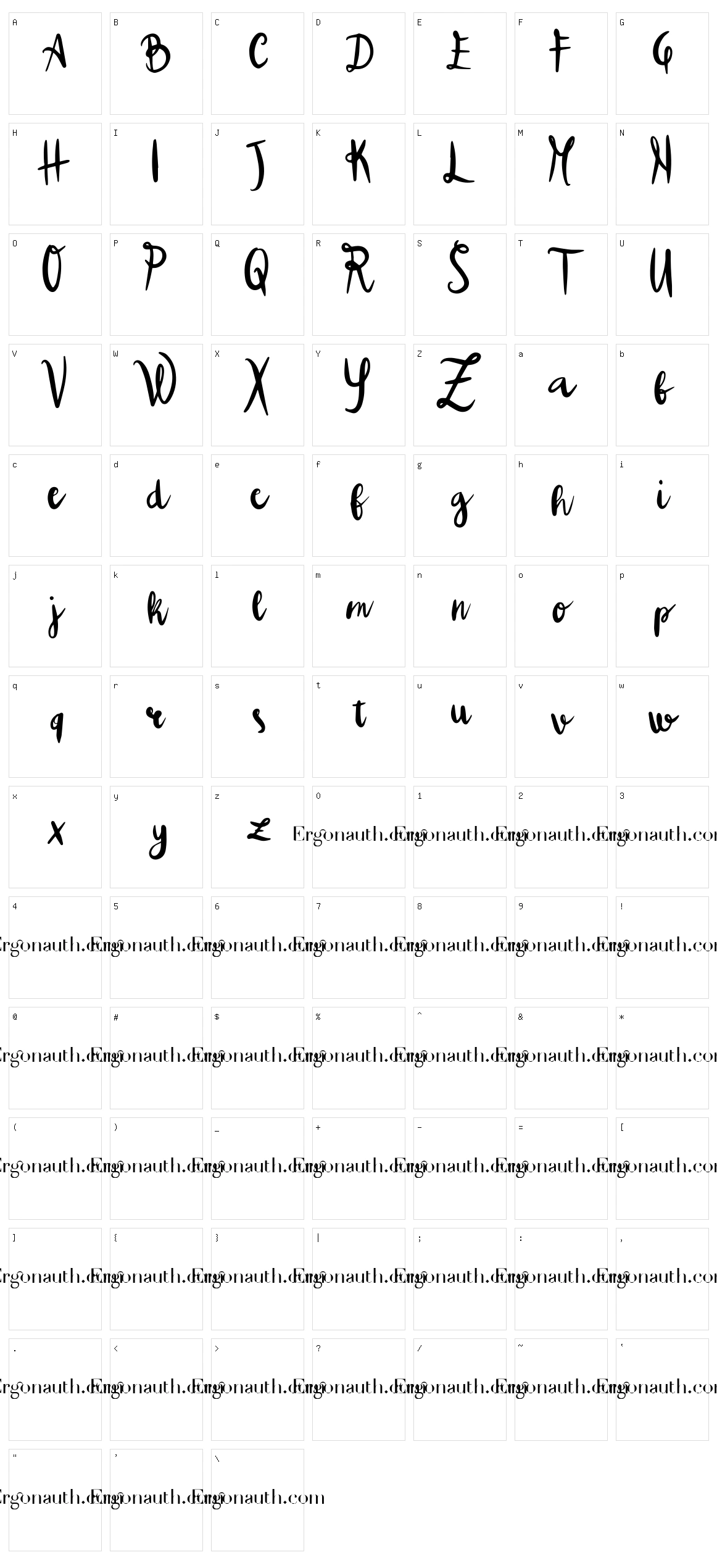
The free font Colpa tua is carefully designed by ErgoType, showcasing a thoughtful balance of creativity and usability and falls under the Script font style. When you download the ZIP file, it contains only 229.51 KB of font files, making it lightweight and quick to download. Please review the license details below to understand permitted usage and distribution rights. If license information is not available, we recommend using this font for personal projects only or contacting the author directly for commercial usage permissions.